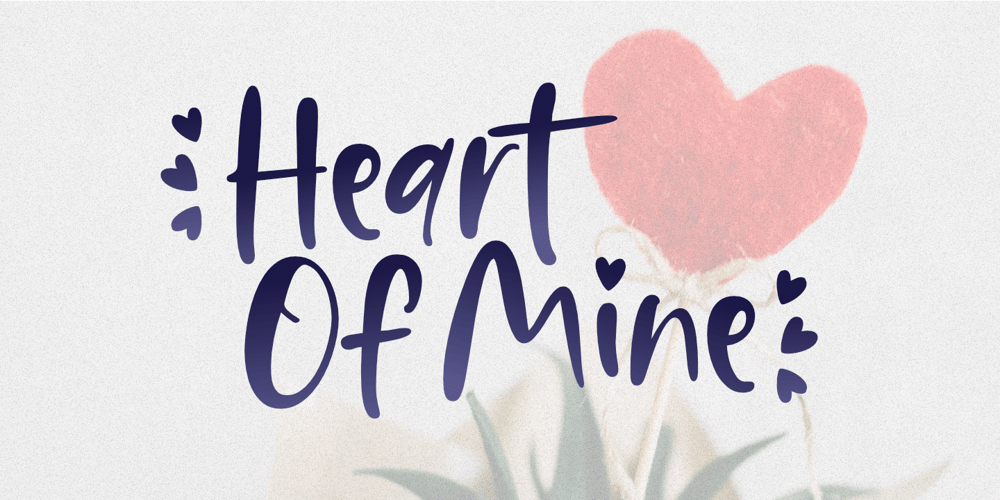
Heart Of Mine Font Family was designed by Aldy Sidik and published by Epiclinez. Heart Of Mine contains 1 styles and family package options. Heart Of Mine is a fun and cute handwritten font that allows you to add an adorable touch to your projects. This font is perfect for the Valentine’s Day season, but also for any other time of the year when you want to add a little love and warmth to your writing.So what’s included : Basic Latin Uppercase and Lowercase Numbers, symbols, and punctuations Multilingual Support. Simple Installations works on PC & Mac